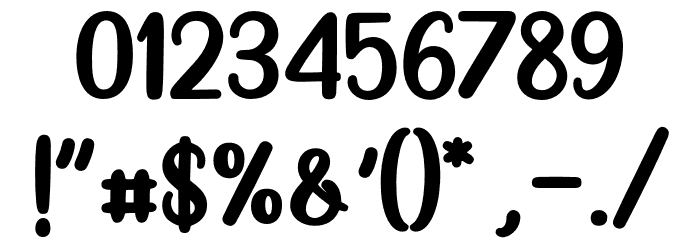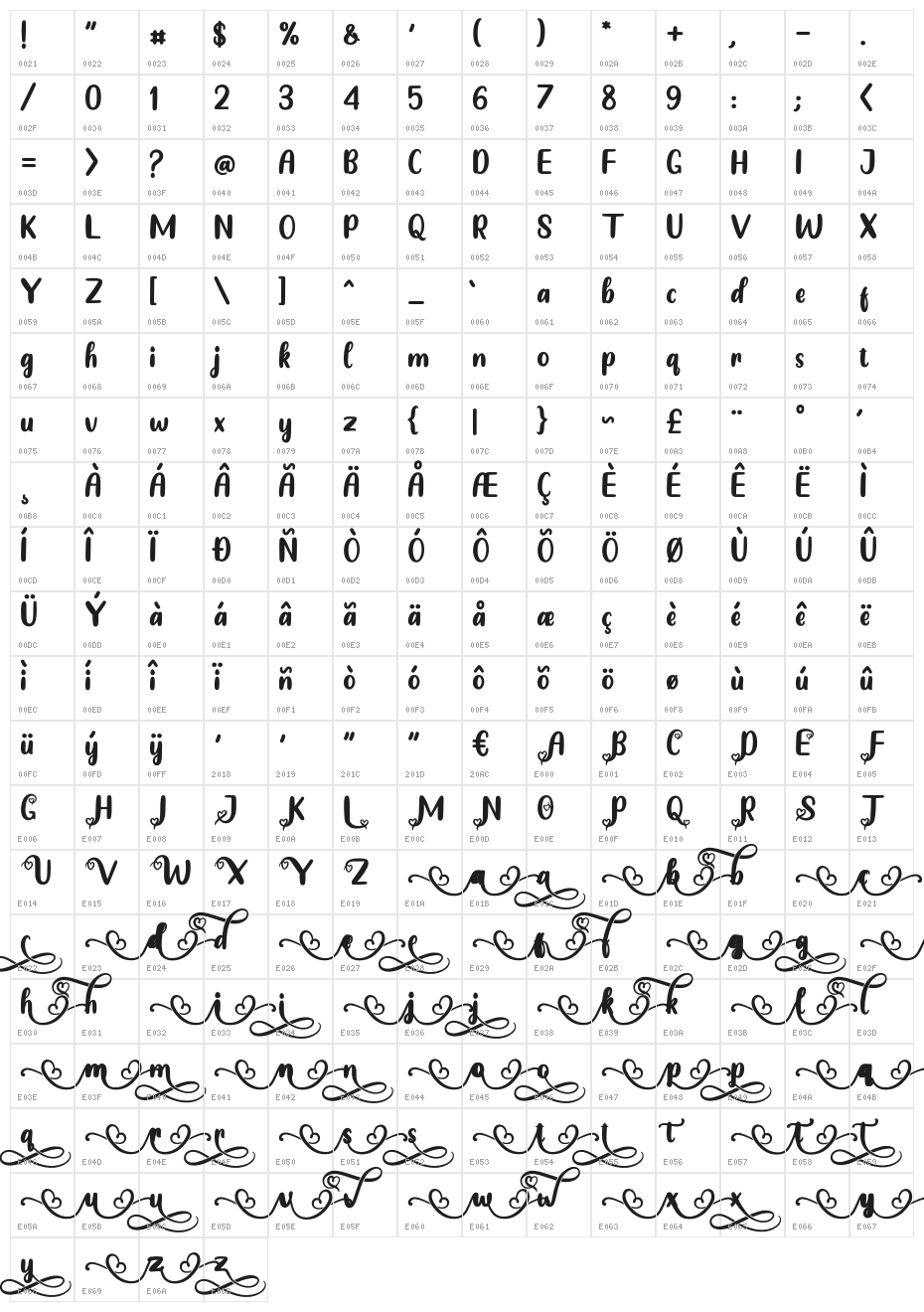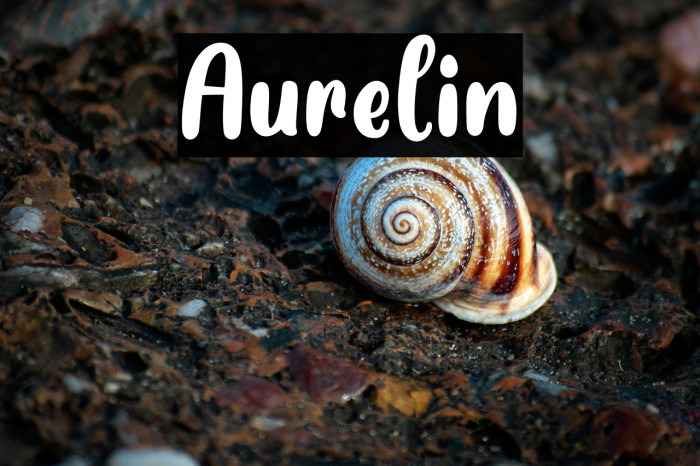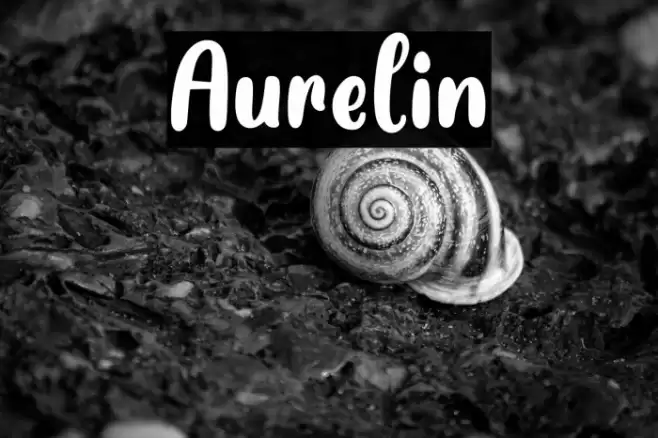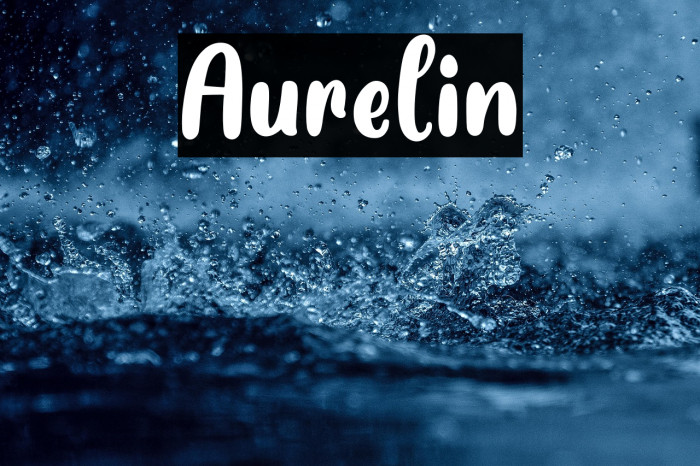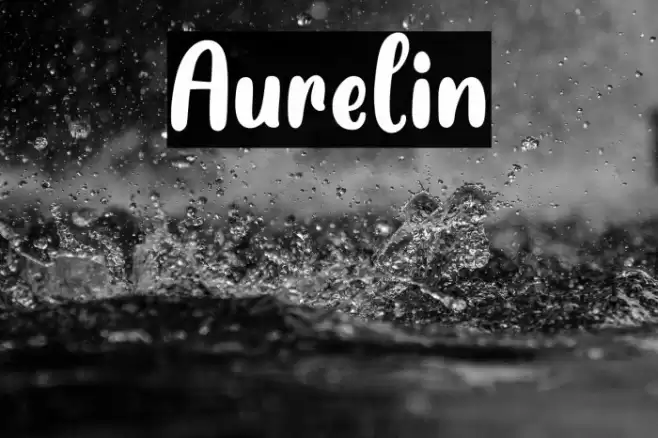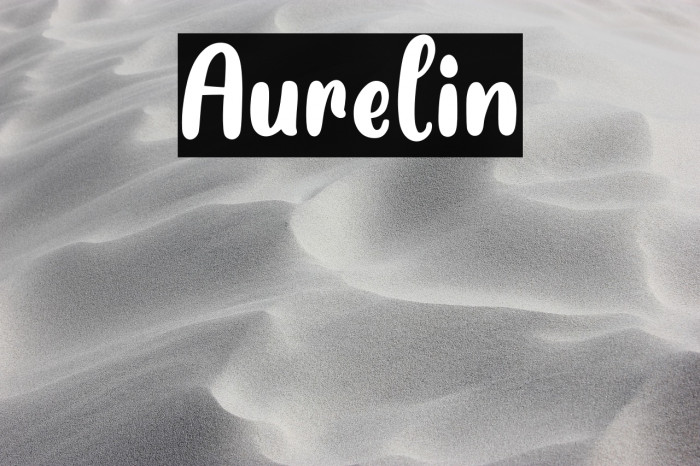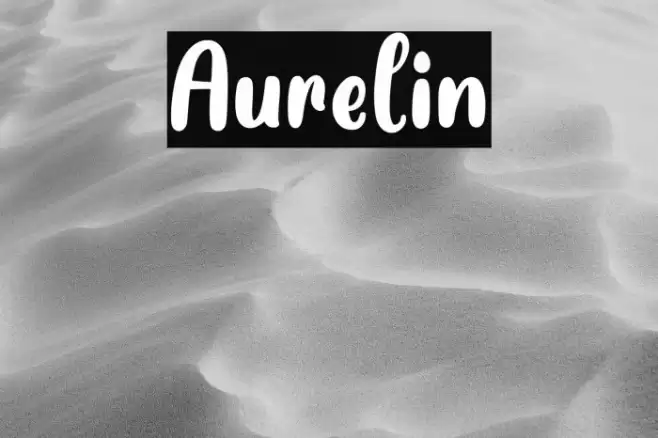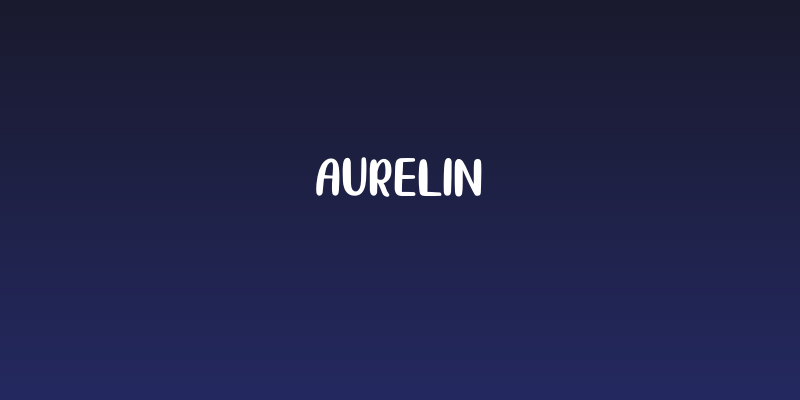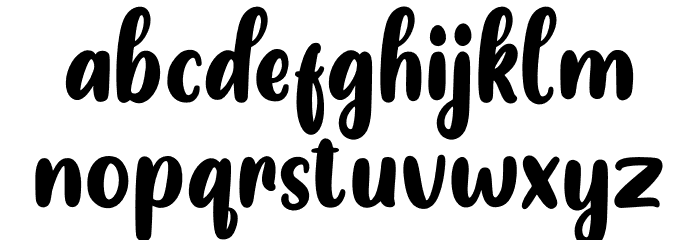
Aurelin Font
Aurelin Description
This font features a playful and rounded style, characterized by its smooth curves and consistent stroke width. The letters have a hand-drawn appearance, giving them a friendly and approachable feel. The uppercase and lowercase characters maintain a uniform height, contributing to a cohesive look. The numerals and special characters follow the same design principles, ensuring readability and versatility. The overall design is modern yet retains a touch of whimsy, making it suitable for various creative applications.
| Use Case | Headlines, Logos, Social media graphics |
| Proposed Projects | Ideal for children's books, greeting cards, playful branding, and social media graphics. |